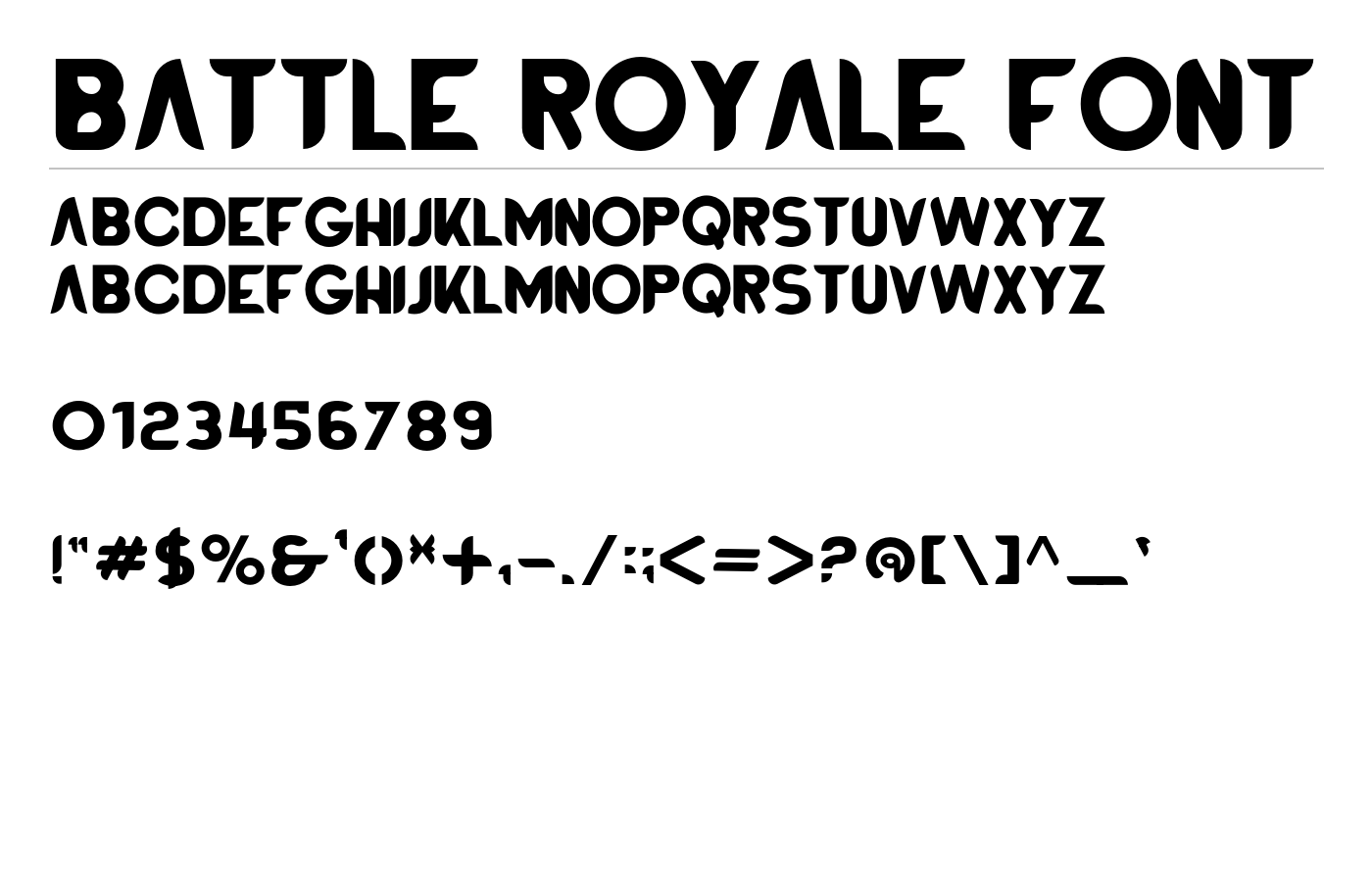
Battle Royale Font is a bold, geometric sans serif typeface with a playful and futuristic vibe. Its thick strokes, unique letter shapes, and tight spacing make it perfect for eye-catching headlines, logos, and gaming-related designs that need to stand out with a strong, energetic personality. This font works well in creative, modern contexts where a striking, distinct style is desired.
BATTLE ROYALE FONT
| Font family | BATTLE ROYALE FONT |
| Designer | Yonathan Zacheus Ticoalu |